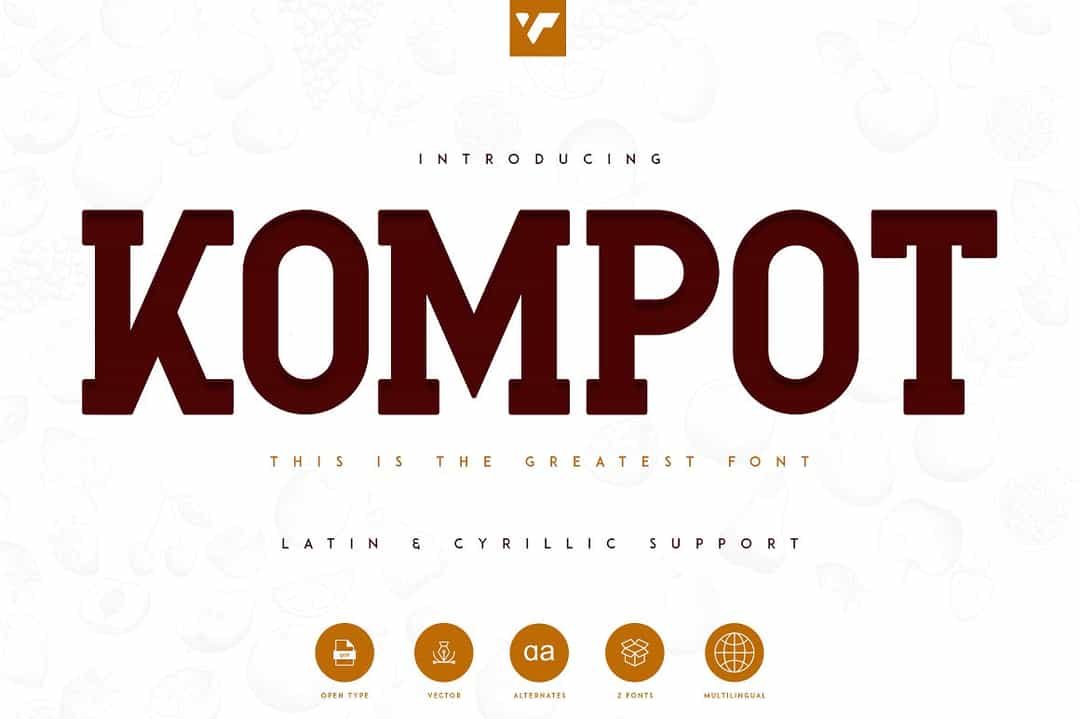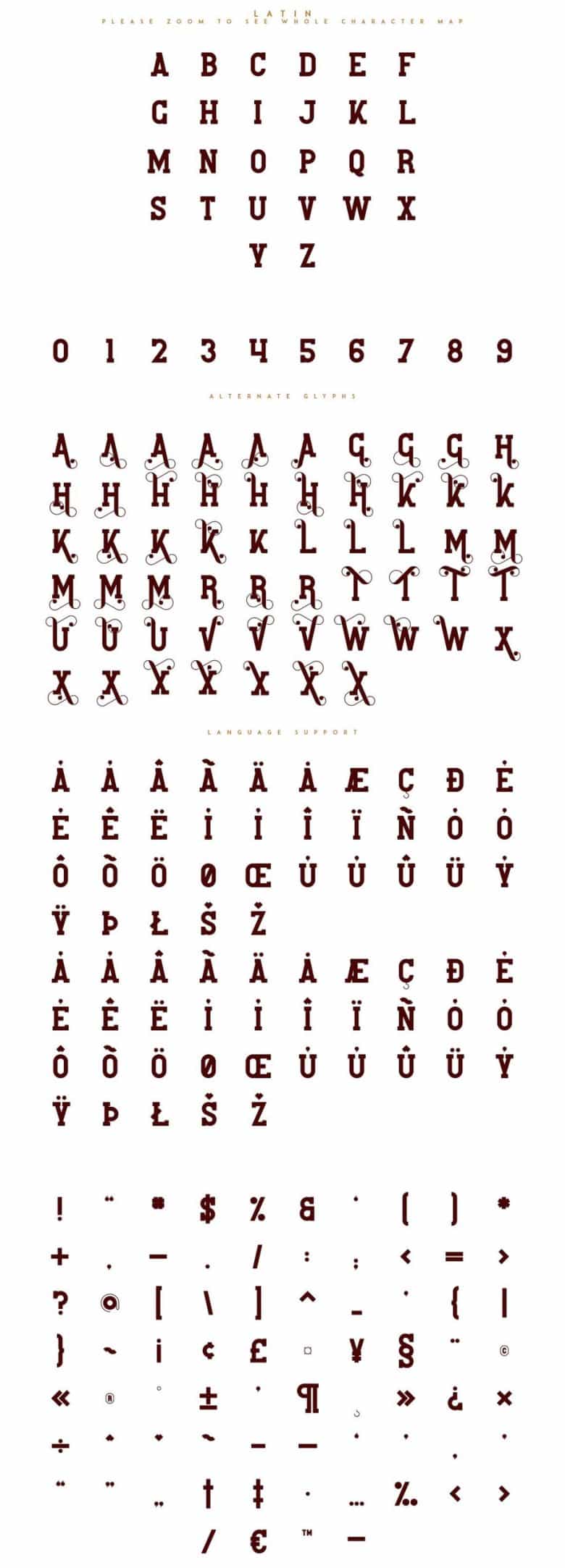
Kompot Slab Serif is an eye-catching vintage typeface featuring two styles to complete any design project. Boasting alternate glyphs as well as multilingual support, this font works wonderfully at small sizes as well as larger ones – plus basic Latin, advanced latin simple Cyrillic as well as advanced Cyrillic character sets are also included!